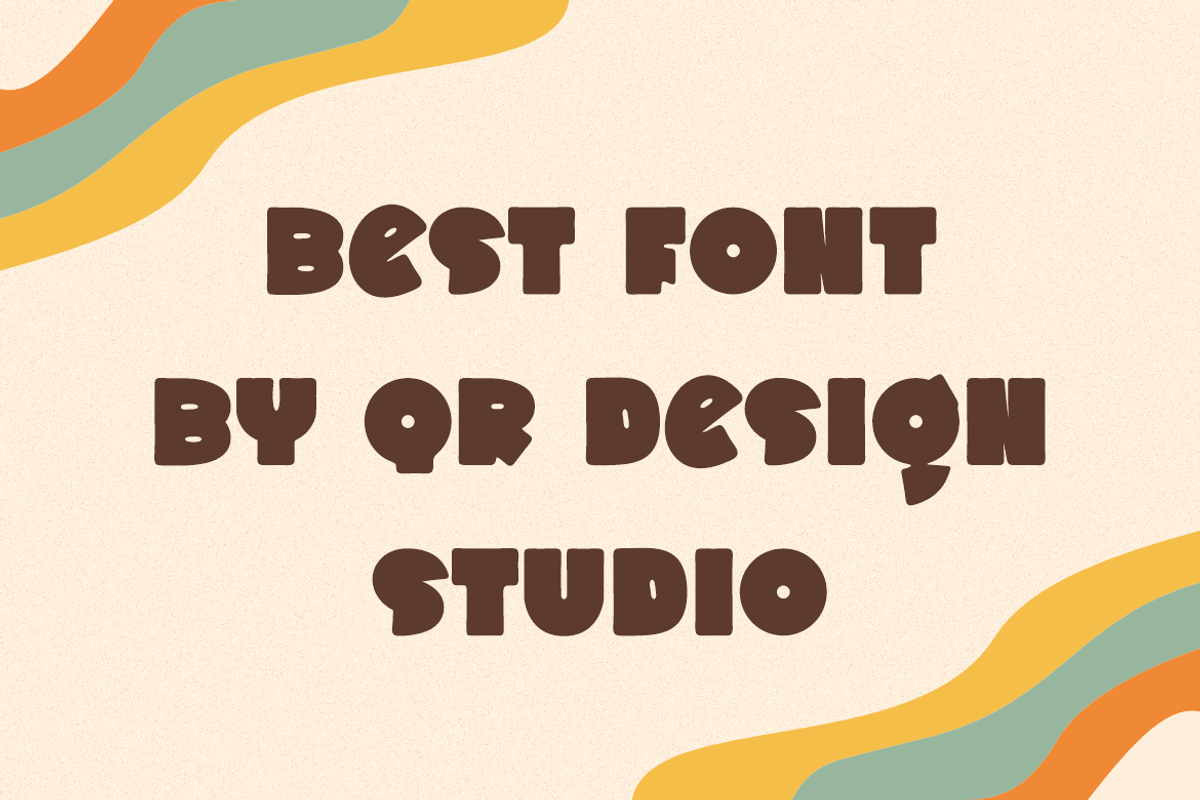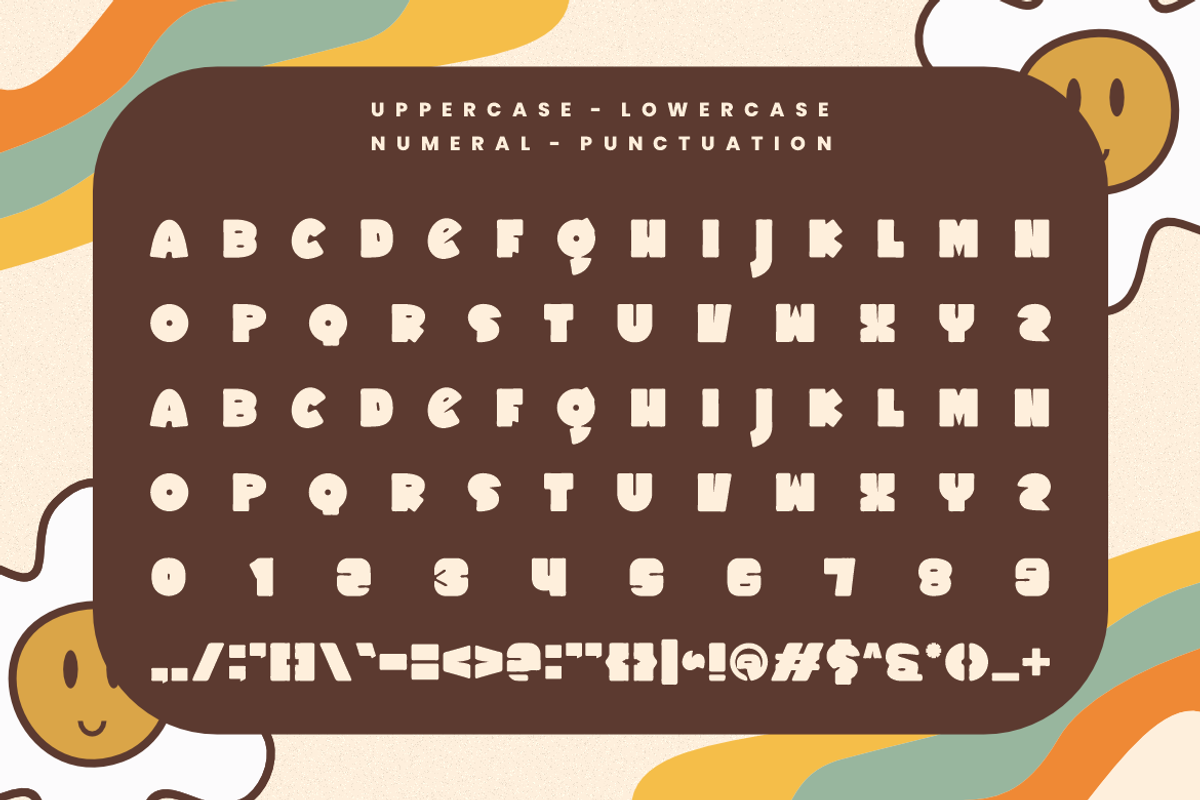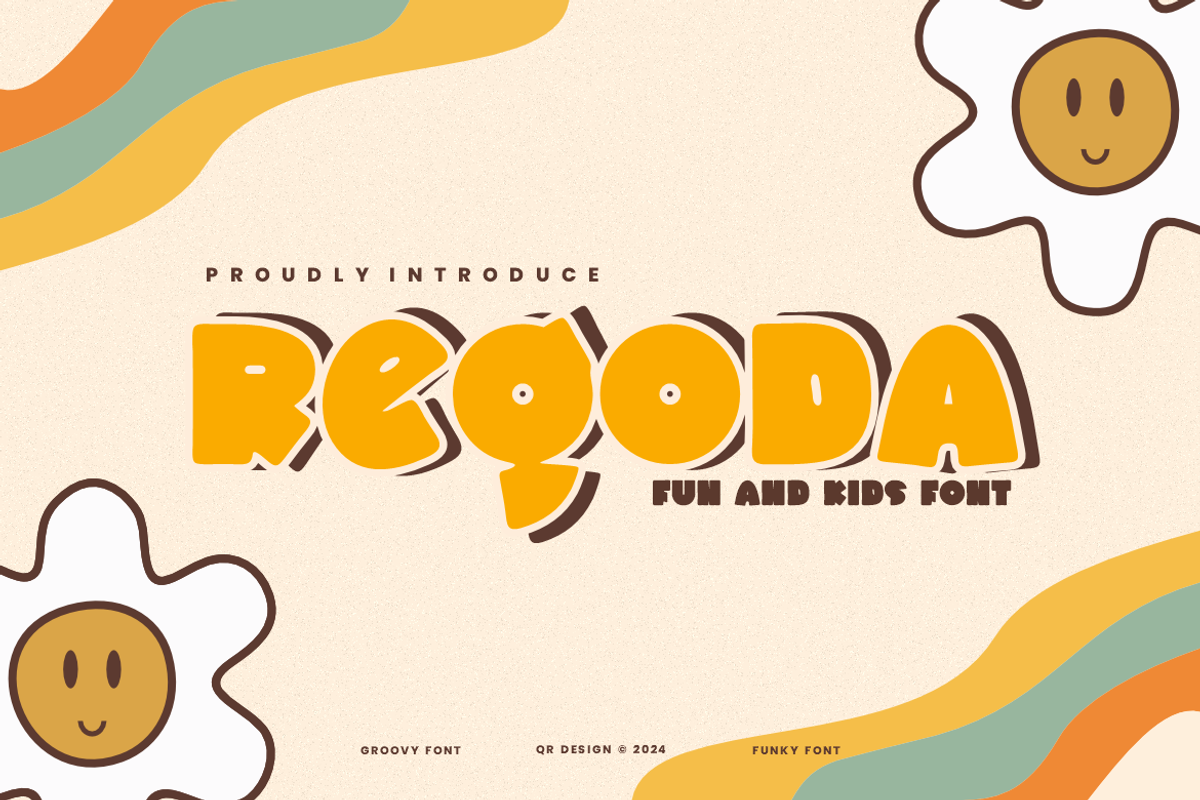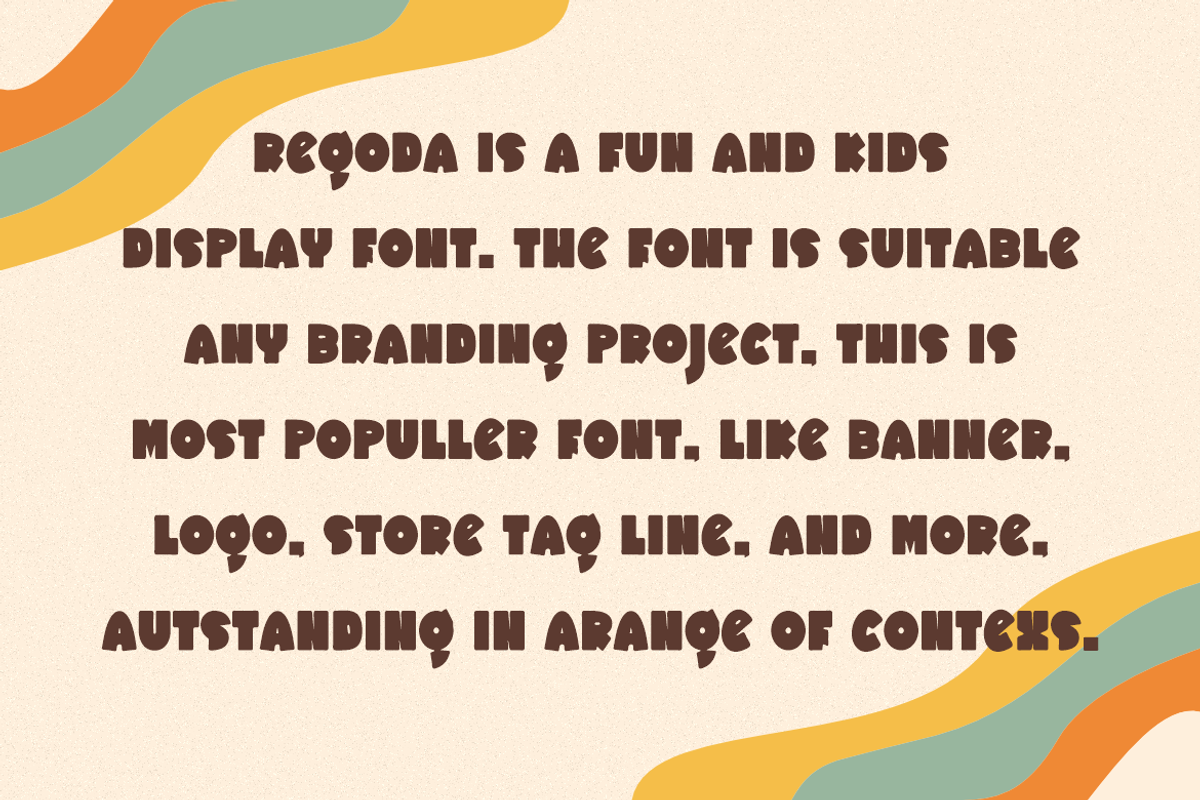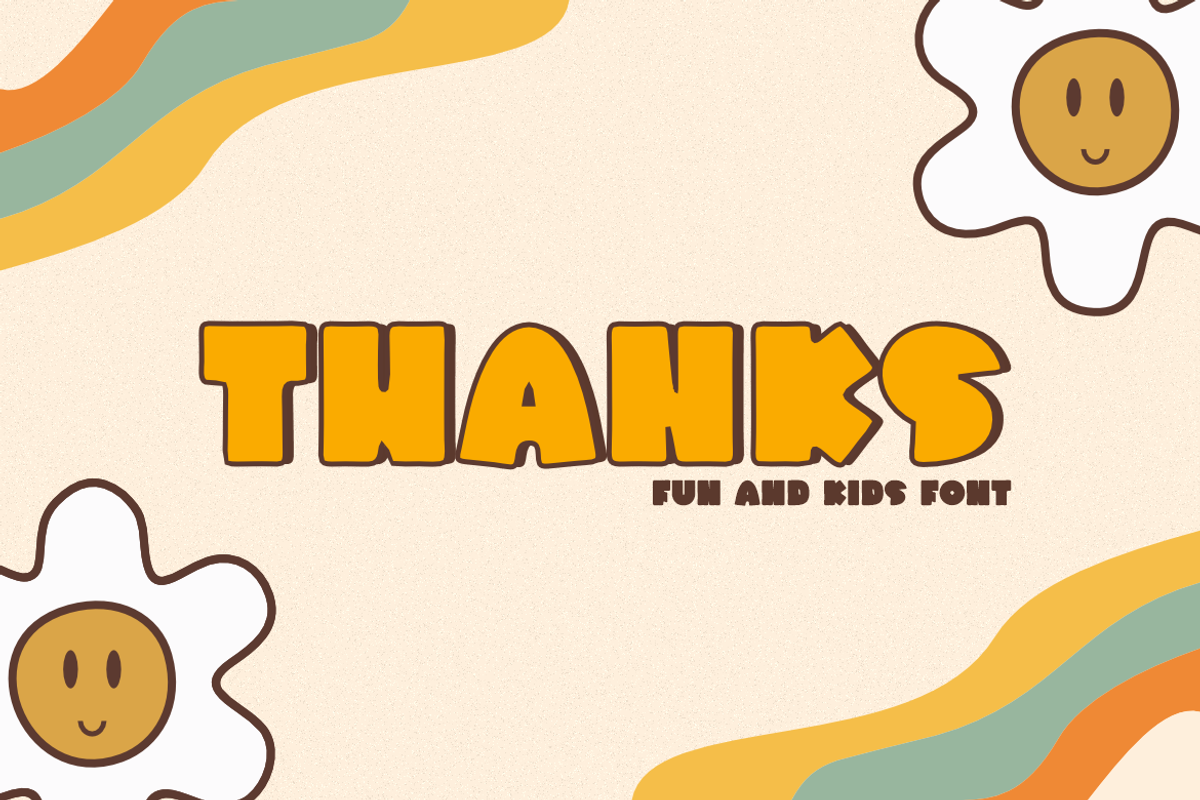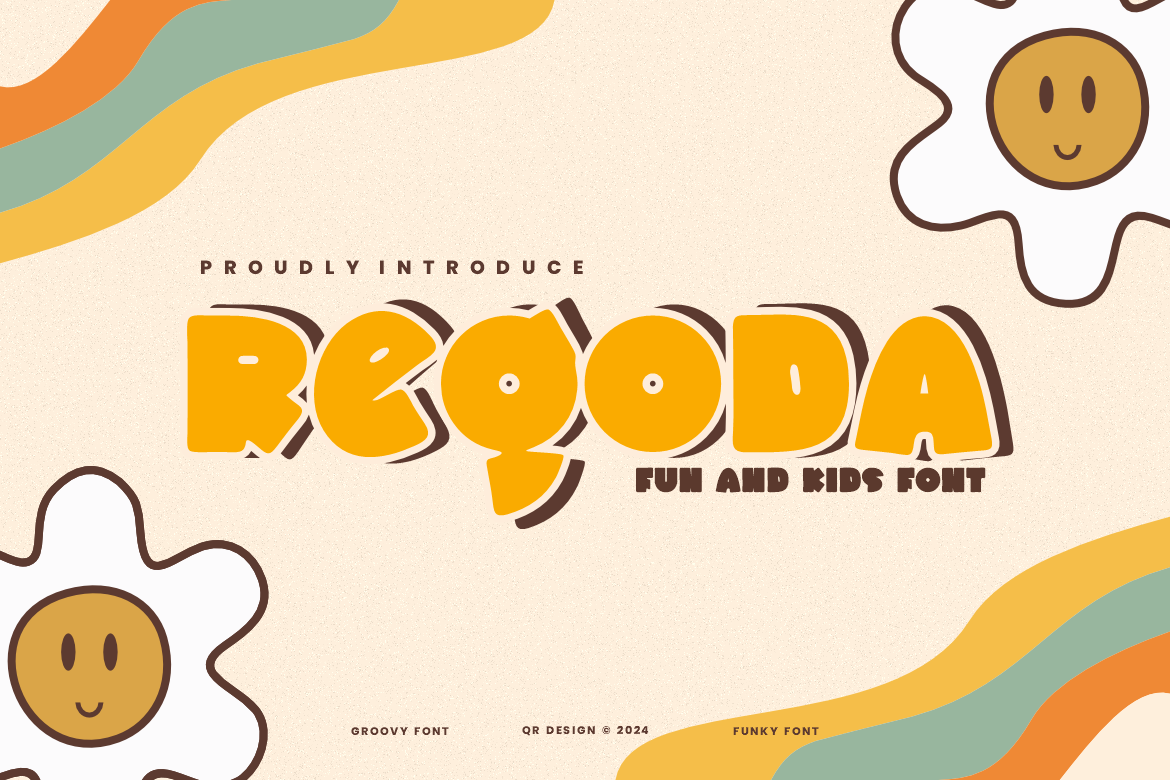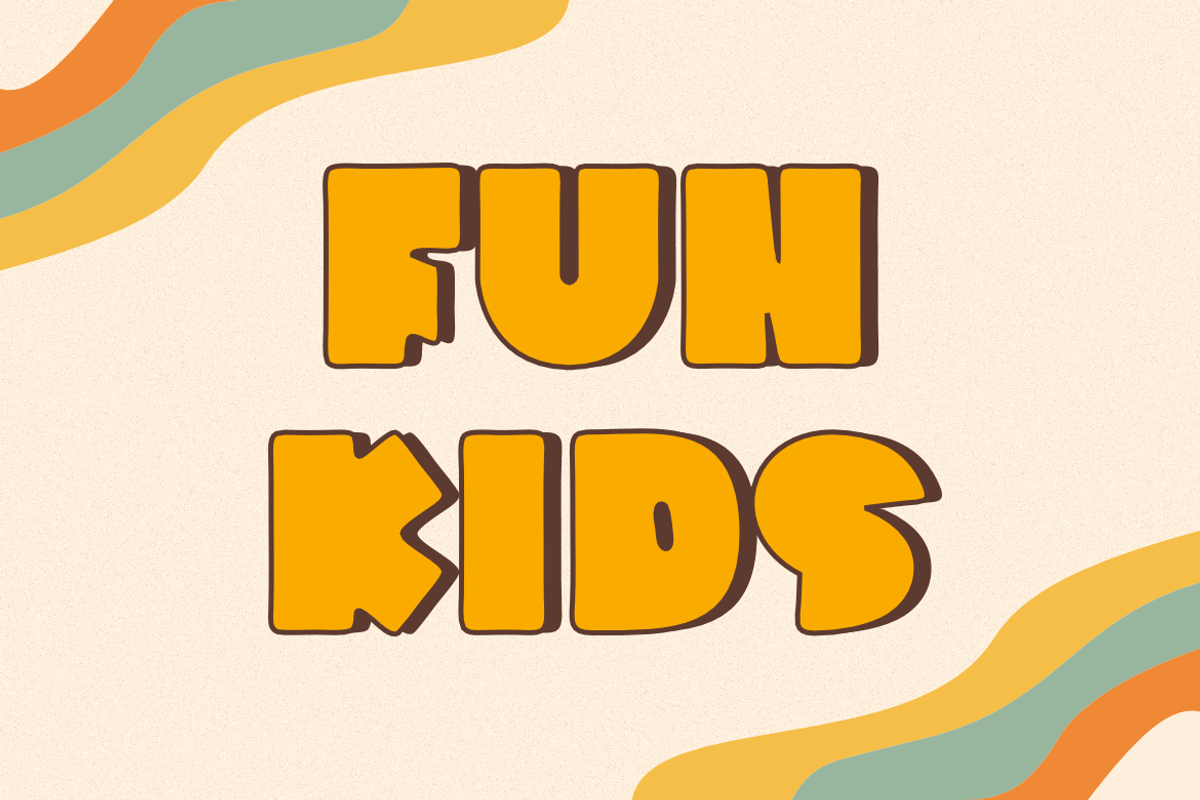
Regoda - Groovy Font
Regoda - Groovy Font is a bold and authentic display font. The font is suitable for any branding project like poster, logo, sport, and many more. Outstanding in a wide range of contexts.